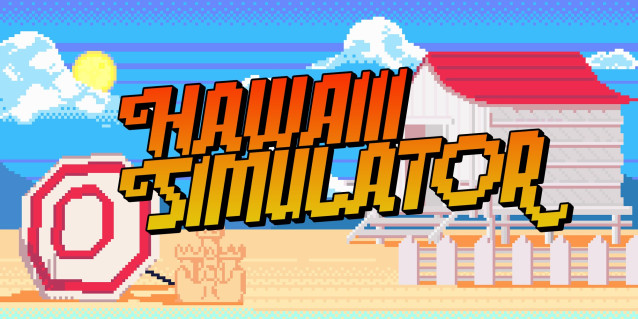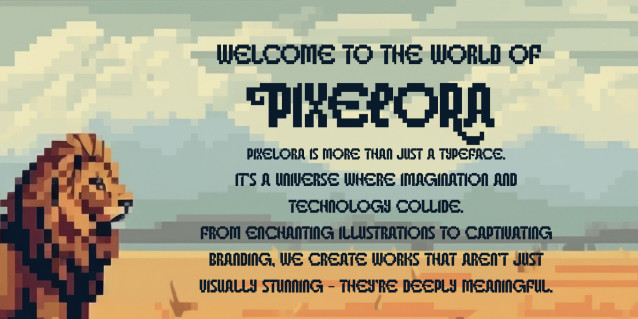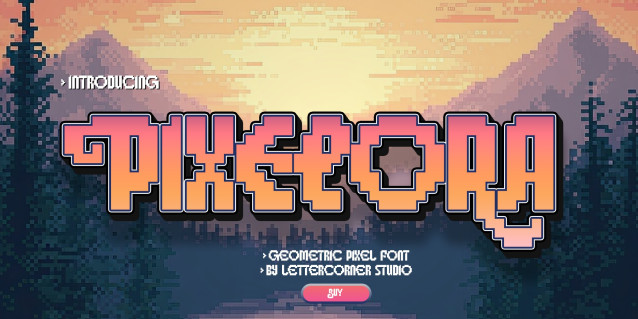
Pixelora Font
Pixelora Font – where every pixel tells a story, and every color holds a soul. Pixelora is more than just a typeface. It’s a universe where imagination and technology intertwine. From magical illustrations to captivating branding, we create works that aren’t just visually stunning — but deeply meaningful.